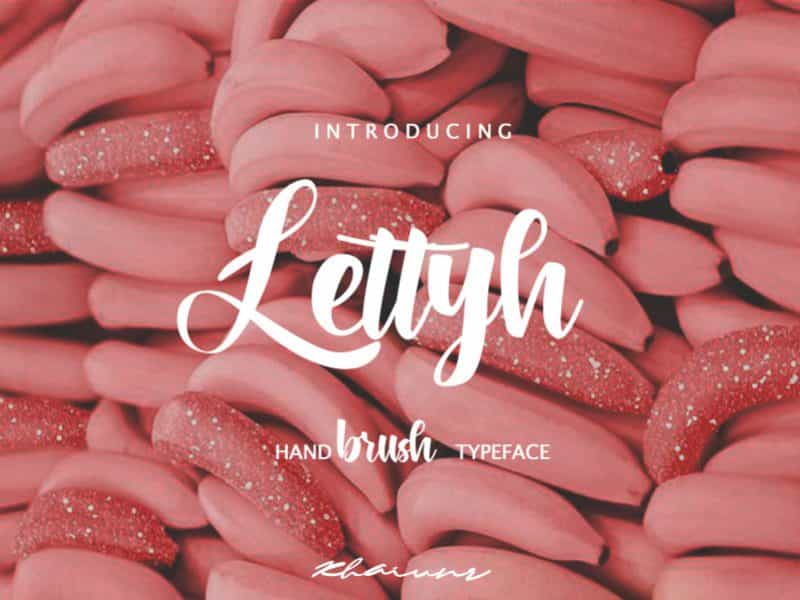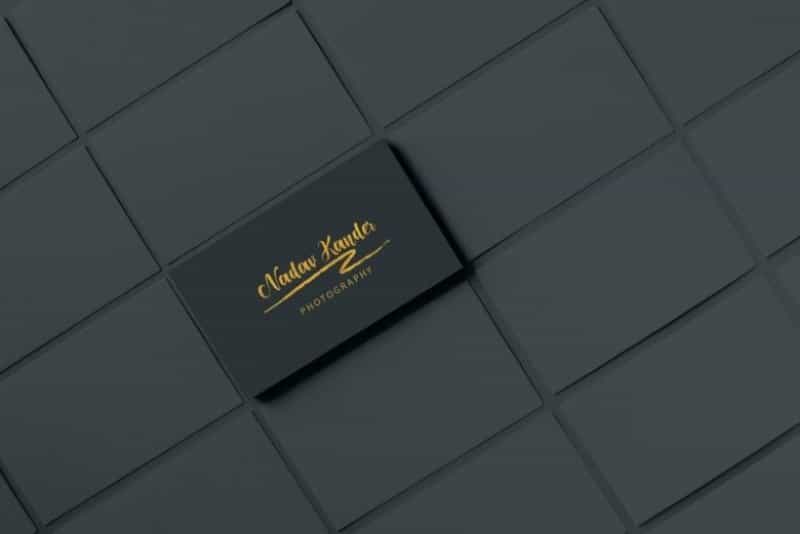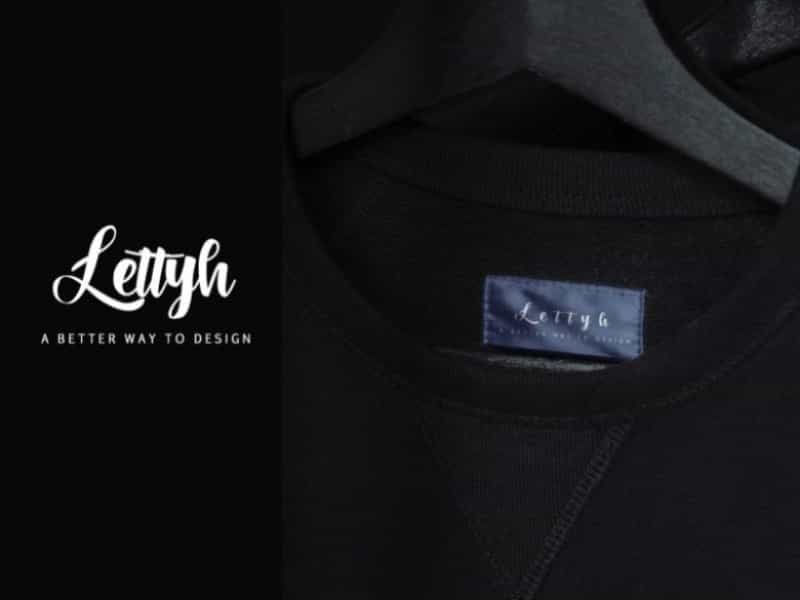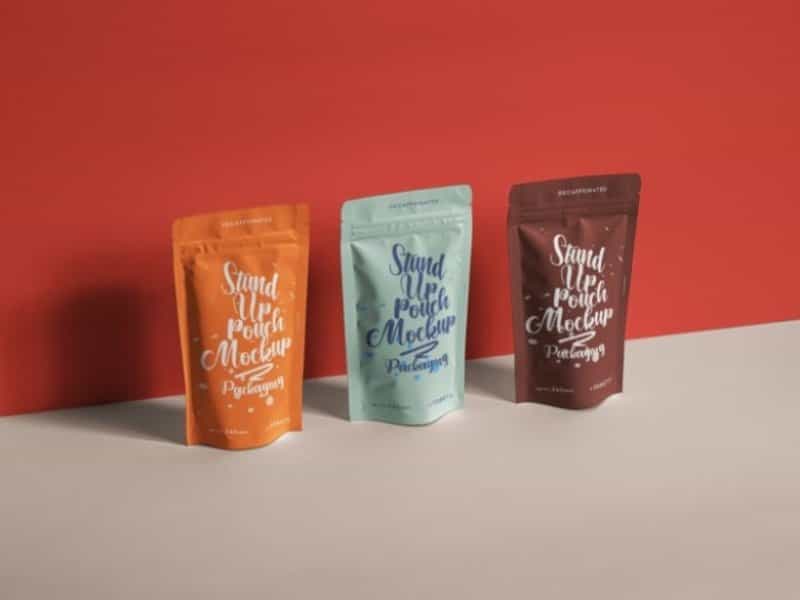
Lettyh is an elegant yet playful font with a generally fun vibe to it and is written in a handwritten style. Feel the modern vibe of the city as you get inspired by the contemporary style of the city. It is created by Khaiuns and is free to download and use for any purpose as per personal usage. The free version only has all the alphabets in caps and small as well as a few symbols.